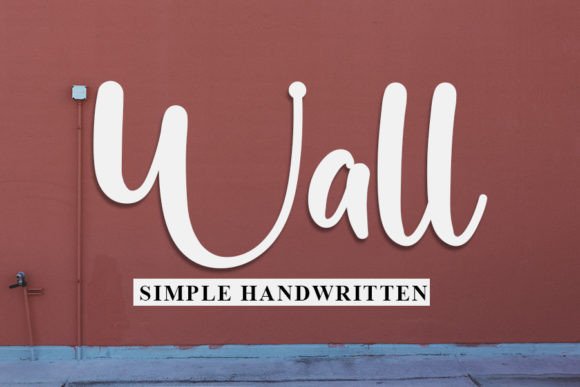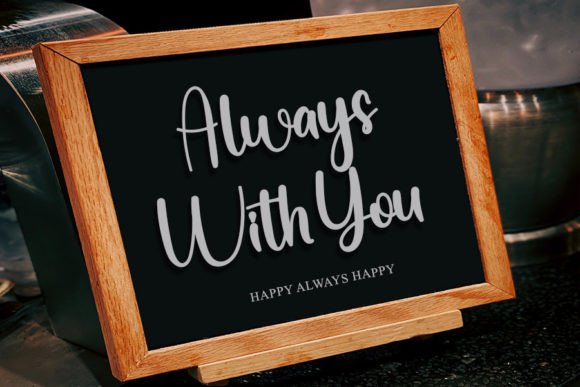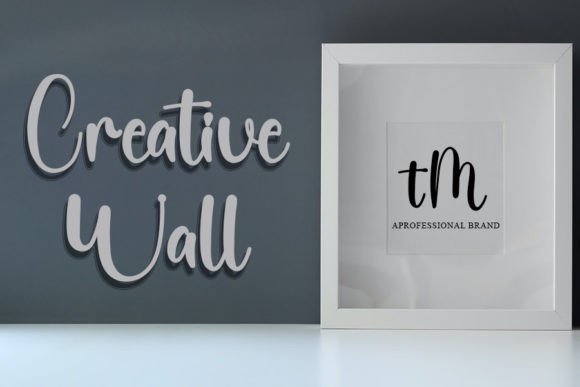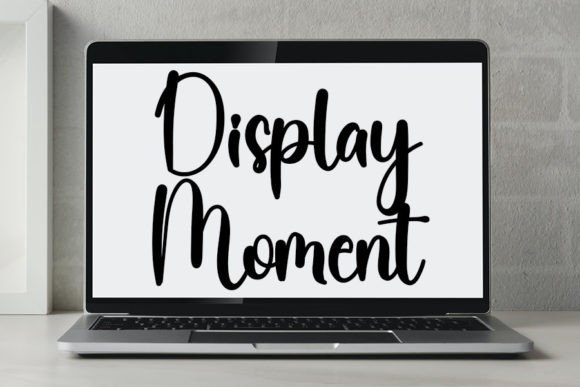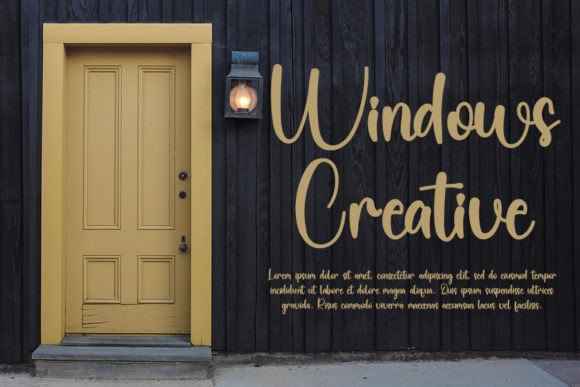
Wall Font
About Wall Font
“Wall” is a friendly handwritten font that has been thoughtfully designed to become a favorite in your font library. This font is crafted to bring a warm and approachable quality to your creative projects, making them come alive with a friendly touch.
The friendly and handwritten style of “Wall” adds a personal and authentic feel to your designs. This makes it a great choice for a variety of creative applications, allowing you to infuse your projects with a sense of warmth and approachability.
Imagine “Wall” used in a poster design, where its friendly letters contribute to a welcoming and engaging message. Picture it in social media graphics, creating a personable and relatable online presence. Envision this font used in product packaging, adding a touch of friendliness to the overall branding.
The versatility of “Wall” extends to its ability to complement different design contexts, making it suitable for both personal and commercial projects. Whether you’re a graphic designer seeking a font that brings a friendly vibe to your work or an individual looking for a font to add a personal touch to your projects, “Wall” invites you to make it a true favorite in your creative endeavors. Let it be the key element that brings your designs to life with a friendly and handwritten charm.